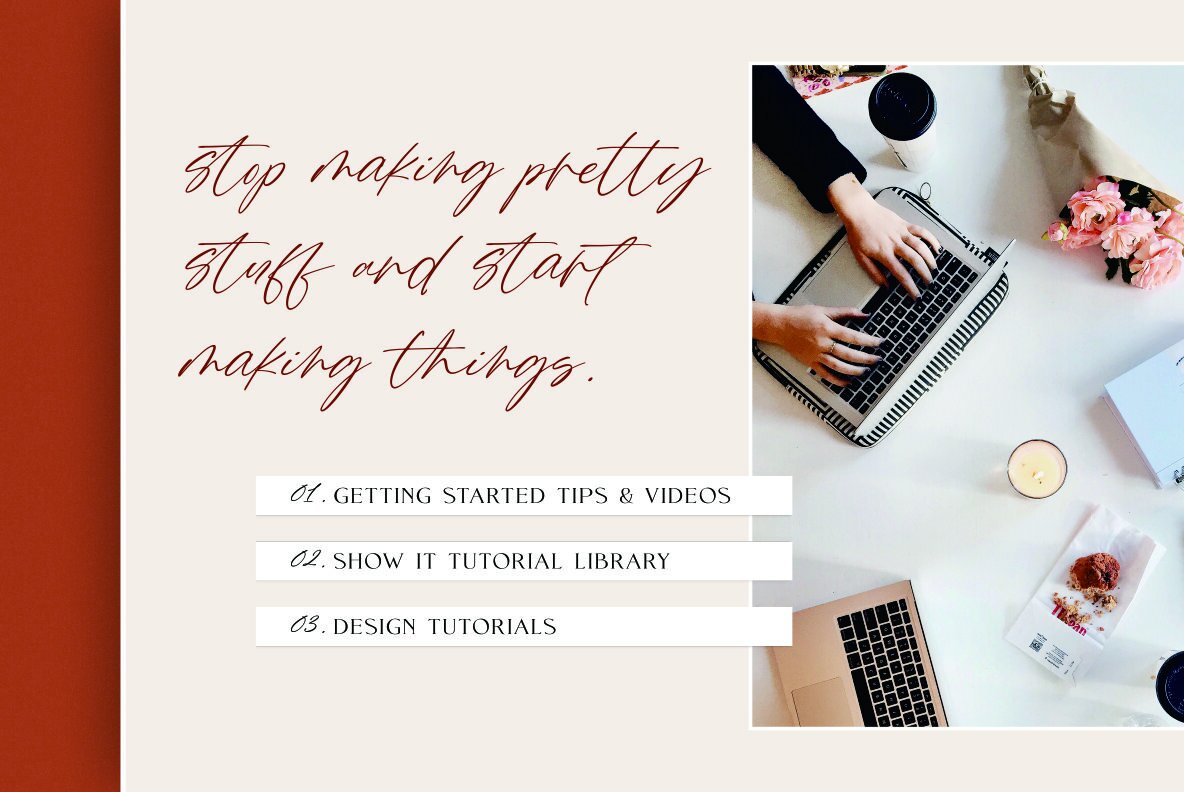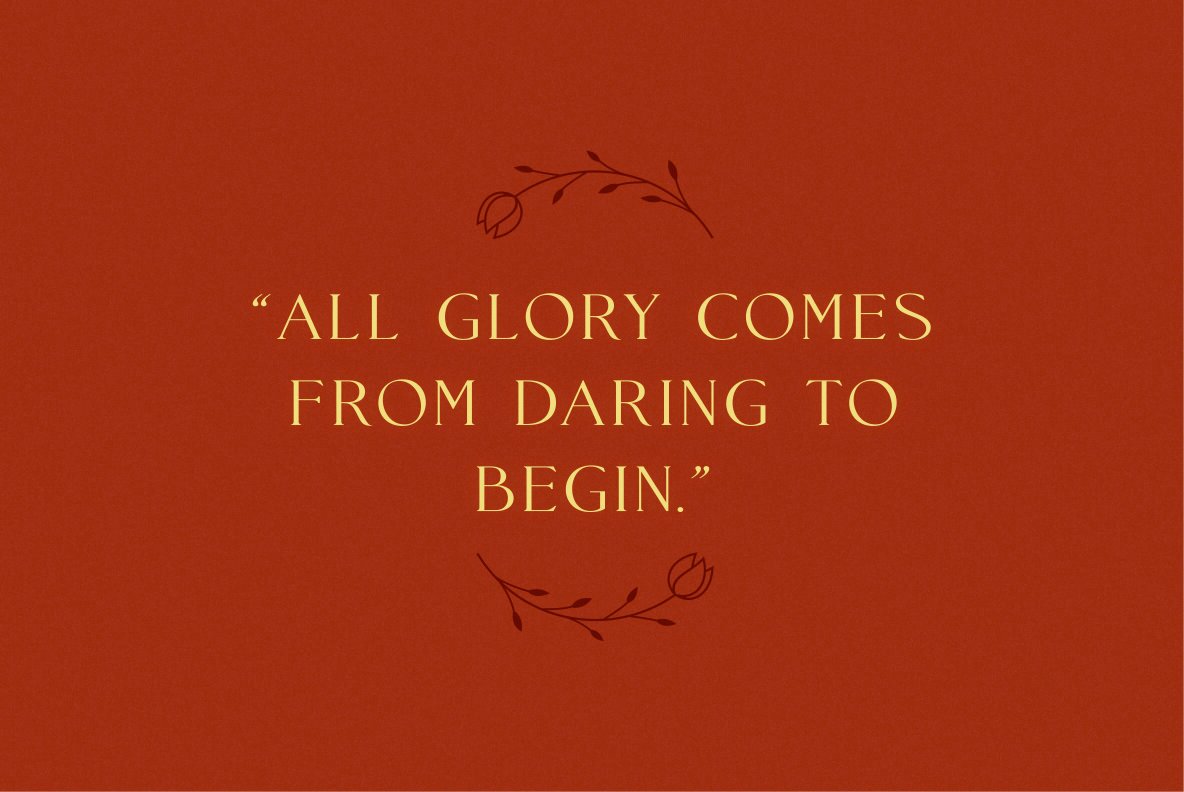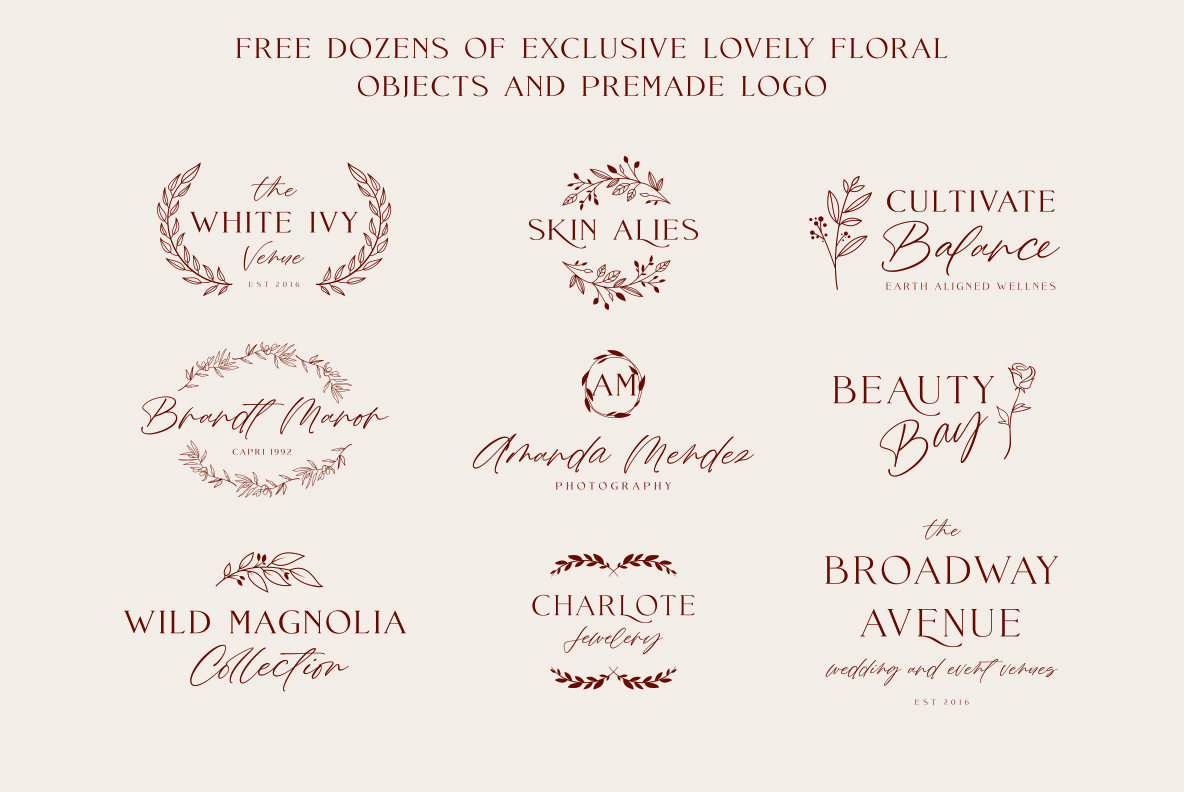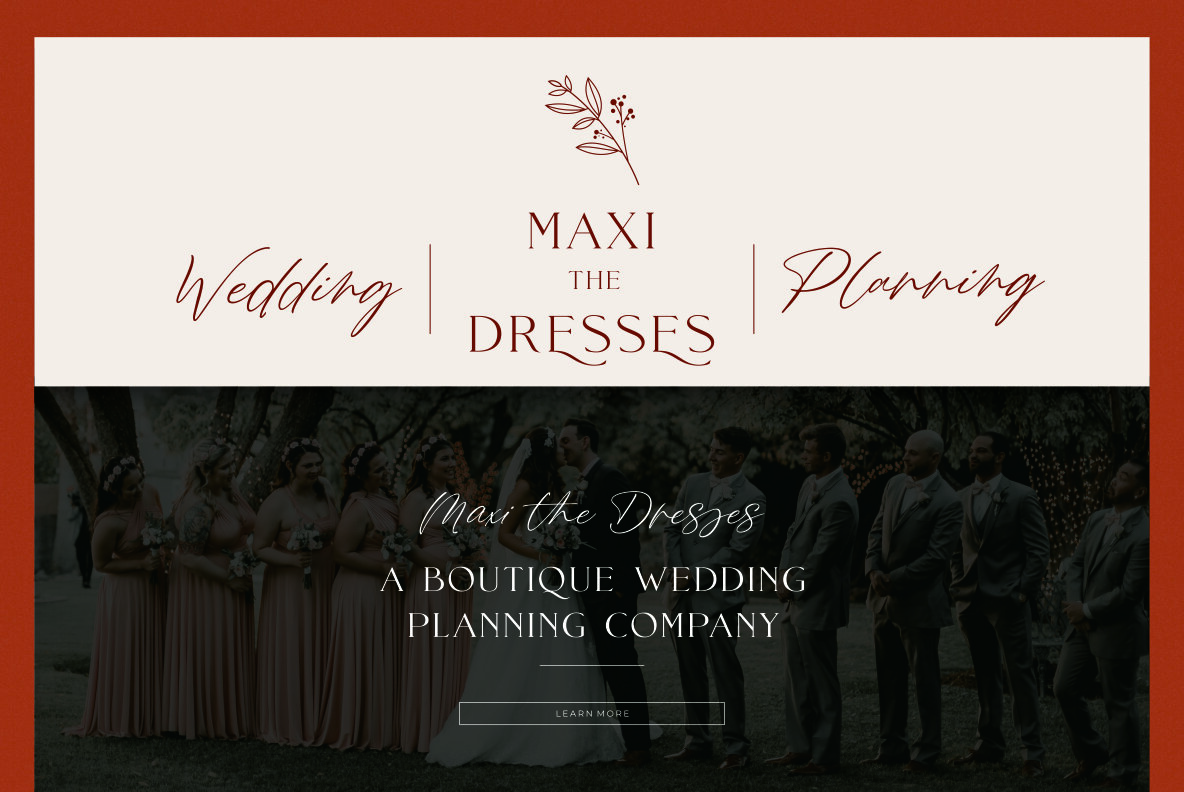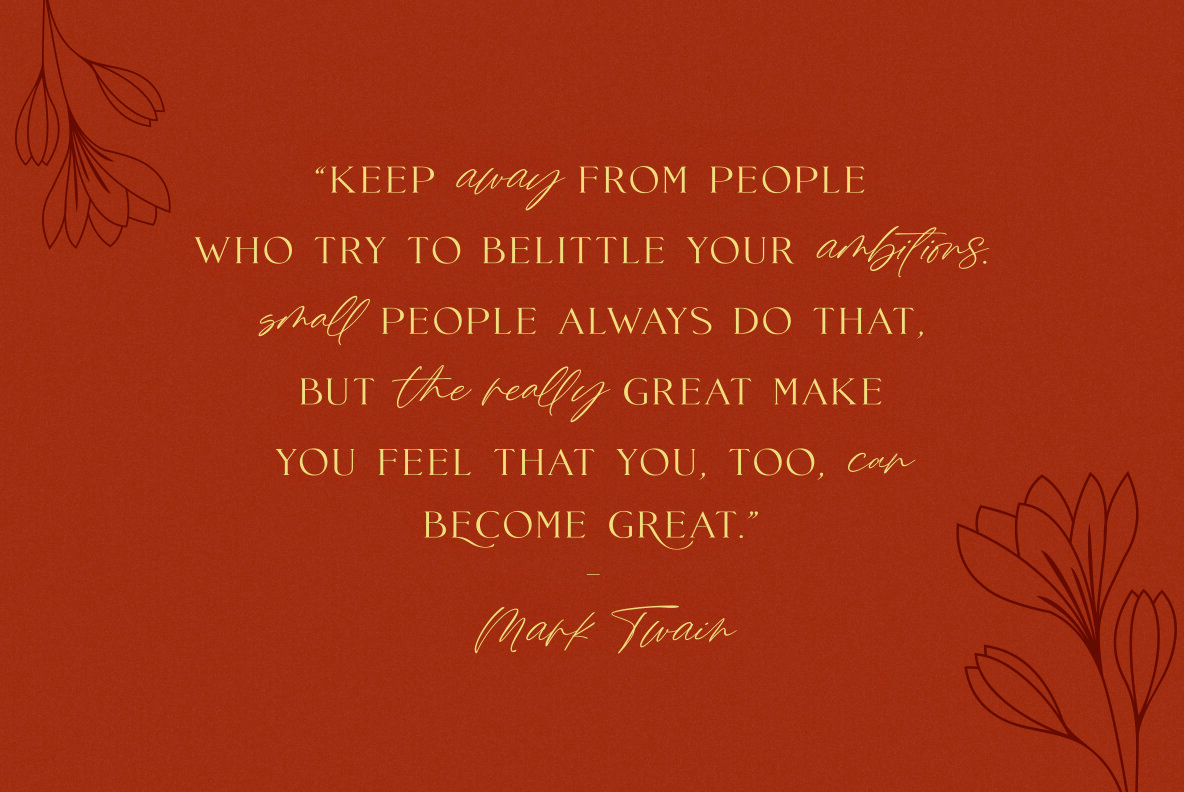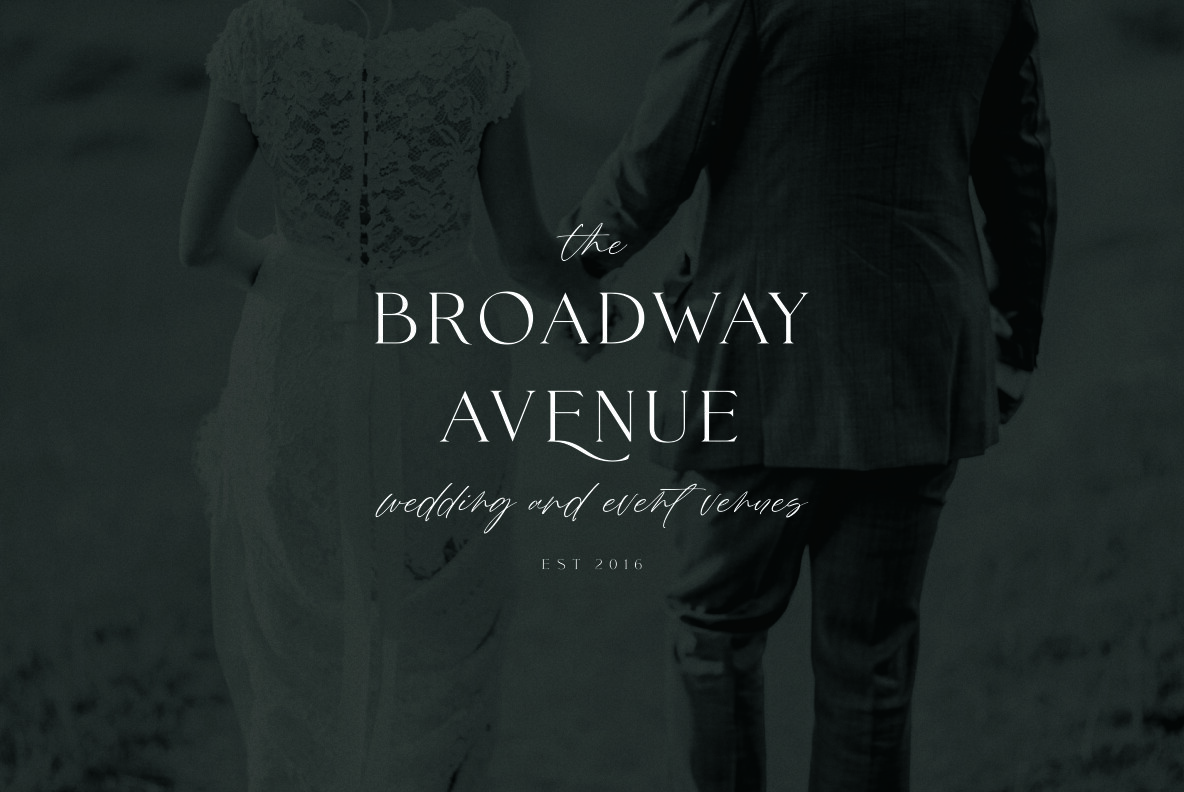
Mance Rose Font
Hi, beautiful! Grab a cup of coffee and settle down for a bit. Mance Rose is a fashionable font duo inspired by the warmest place on Earth. Create stylish and elegant designs in record time with the Mance Rose font duo, by Ready Studio.
The unique pairing of two fonts – one calligraphic and one sans-serif – allows you to create a look that is both authentically vintage and decidedly modern. Whether you need distinct lettering for a logo or simply social media updates for your brand, this versatile set will help with all of those design purposes!
Mance Rose features:
- A full set of upper & lowercase characters
- Numbers & punctuation
- 52 Extravagant ligatures
- Lowercase alternates characters
- Multilingual symbols